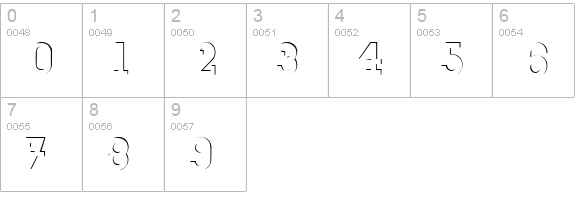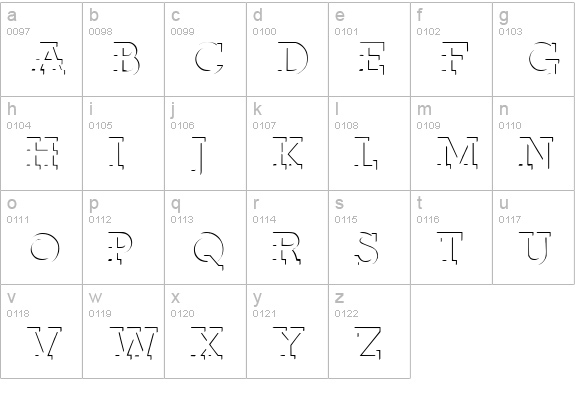
Linford Font Details
Linford font is a modern and elegant typeface that exudes sophistication and style. With its clean lines and sleek curves, Linford is perfect for adding a touch of class to any design project. Whether you're creating a logo, website, or print material, this versatile font will make your text stand out. The best part? Linford font is completely free to use! You can download it at FontsMarket.com without any cost, making it a valuable addition to your font collection. Don't miss out on the opportunity to enhance your designs with the timeless beauty of Linford font. Download it today and see the difference it can make in your creative projects.